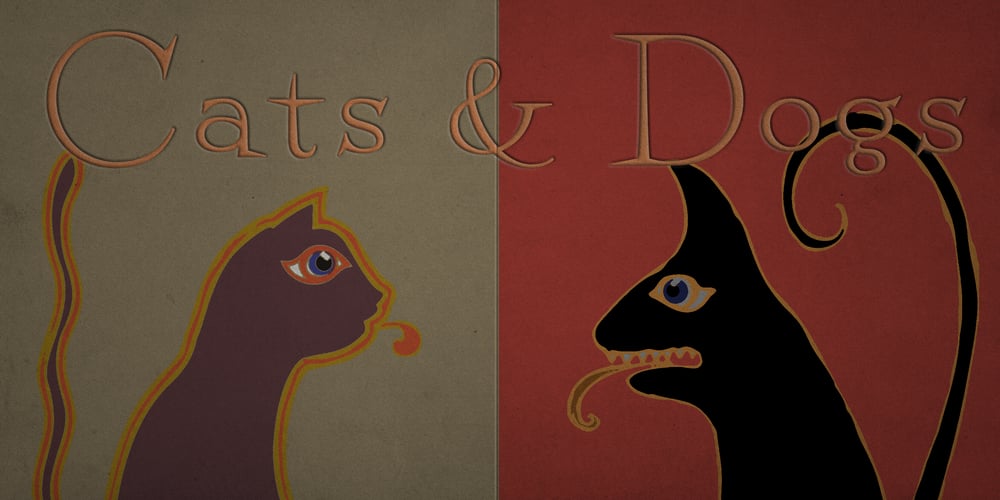
Perfect Magic Font Family was designed by Ryoichi Tsunekawa and published by Dharma Type. Perfect Magic contains 2 styles and family package options. Jazzy serif based on swing jazz record album covers in the first half of the 20th century. This is very good for children’s picture book, package too.